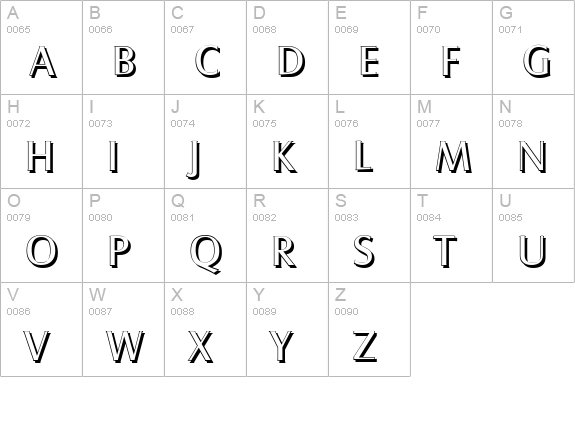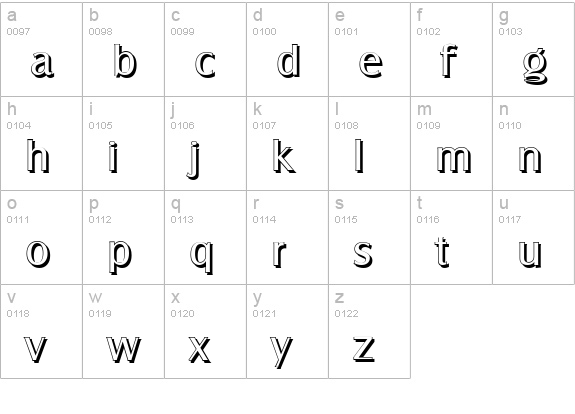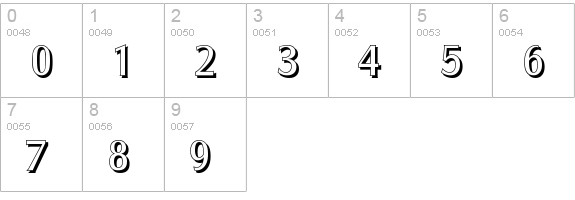
SalzburgShadow-Regular Font Details
SalzburgShadow-Regular is the standard, neutral variant in the SalzburgShadow typeface family \xE2\x80\x94 well suited to general body text, paragraphs, and standard typographic work.
SalzburgShadow-Regular is a stunning and elegant font that exudes a timeless charm with its classic shadow effect. This versatile typeface is perfect for adding a touch of sophistication to your designs, whether it be for invitations, branding, or editorial projects. The intricate details and clean lines of SalzburgShadow-Regular make it a standout choice for those looking to make a statement. Best of all, SalzburgShadow-Regular is completely free to download at FontsMarket.com. This means you can access this exquisite font without any cost, making it an excellent choice for designers on a budget or those looking to experiment with new typography styles. Don't miss out on the opportunity to elevate your designs with SalzburgShadow-Regular - download it today and let your creativity shine!